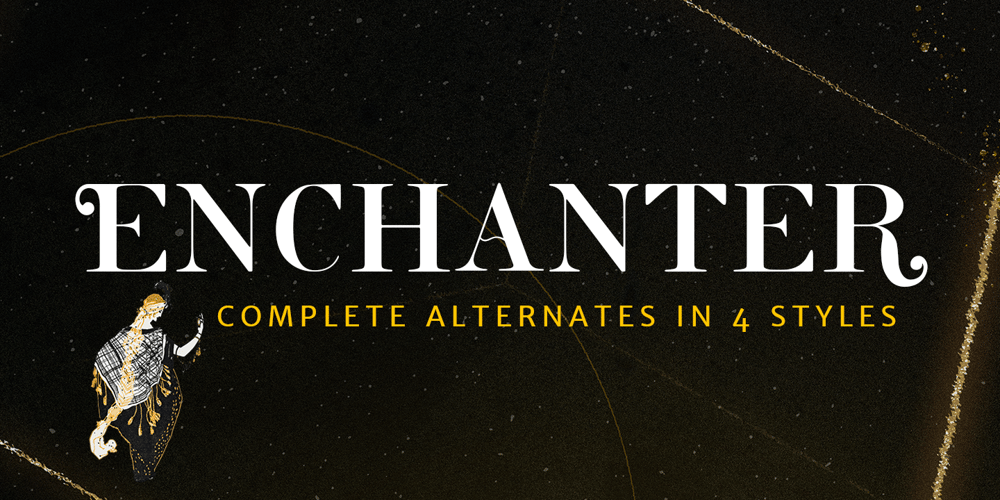
Enchanter
Enchanter font
Enchanter Font Family was designed by Mary Anne Remulla and published by Cloveron Media. Enchanter contains 1 styles and family package options. Cloveron Media unveils its first serif font that goes beyond the formal nature of typography. It celebrates the artistic expressions of graphic designers within themselves.The NameMary Anne Remulla is the Master Designer behind the Enchanter Font. She aims to make graphic designers filled with delight and enjoy typography with its extensively artistic alternates and multilingual characters.The Font StyleThe serif style, known for its formal touch to typographic design, infuses the font with its professionalism as its regular. Using its middle alternate adds a hint of unique touch without losing the serif style’s essence.The Enchanter font’s start and end alternates are the designer’s illustrations of design balance, which elevates its charm and enticing nature that adds to its overall artistic power.”I am fascinated by art and so by design. A font with alternates was my great revelation that I can do typography artistically, enthusiastically, and with freedom. I later found myself fascinated and lost in paper space, which then ended up that I completed my first font creation with extensive alternates for each letter.” – Mary Anne Remulla